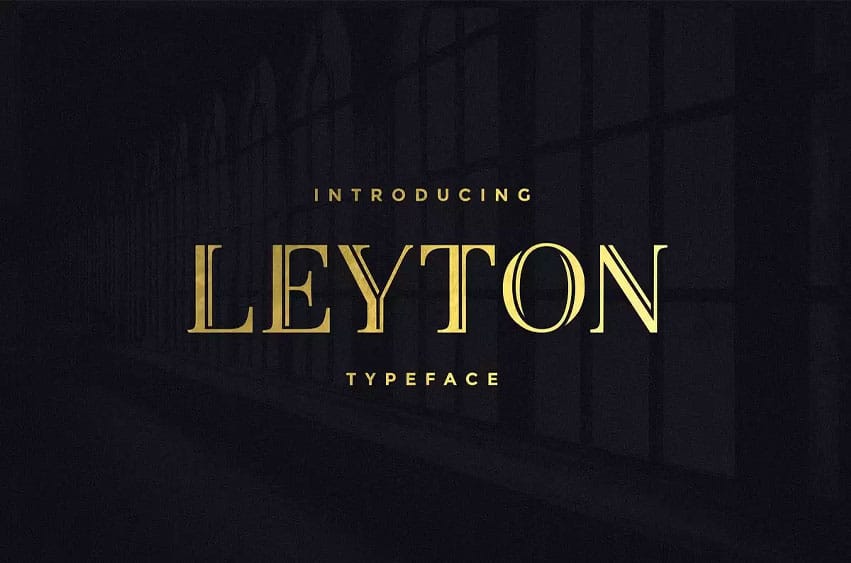
Leyton Font provides users with a sophisticated appearance of classic serifs through its unique, subtle yet compelling appearance. The sleek design makes Leyton ideal for headlines and titles as well as custom logotypes, which enhance editorial design and packaging with a distinguished appeal. Versatility enables Leyton to elegantly complement visuals with text with a contemporary look or provide an elegant touch to wedding invitations.
The Leyton font family includes:
Leyton Regular includes uppercase and lowercase fonts together with numerals and detailed punctuation marks in its traditional serif design.
Leyton Bold – A distinct, high-impact version with an entirely new set of upper and lowercase letters. The text retains its boldness while dominating complex backgrounds and heavy-weighted designs because of this design’s intense strength.
Leyton serves projects well that need contemporary design, together with classy elements, due to its flexible nature.